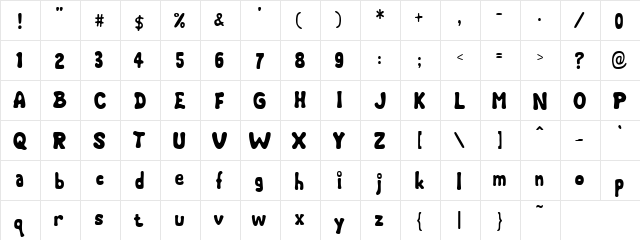
Sans Nimble Regular
Design Context for Sans Nimble Typeface
Sans Nimble offers clean, dependable letterforms without strong stylistic allegiance, making it a practical choice for designers who need flexibility.